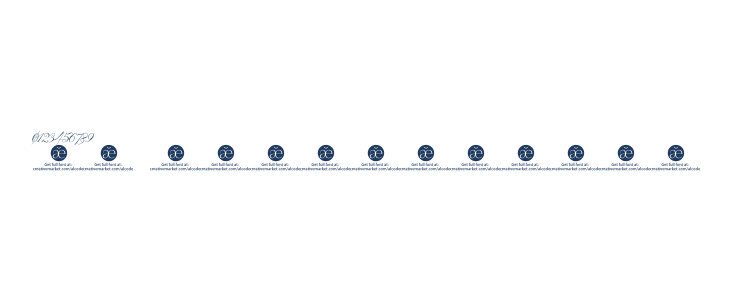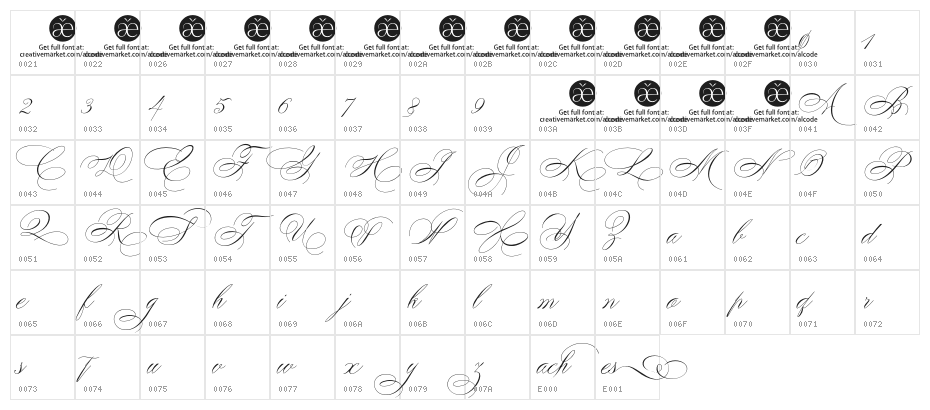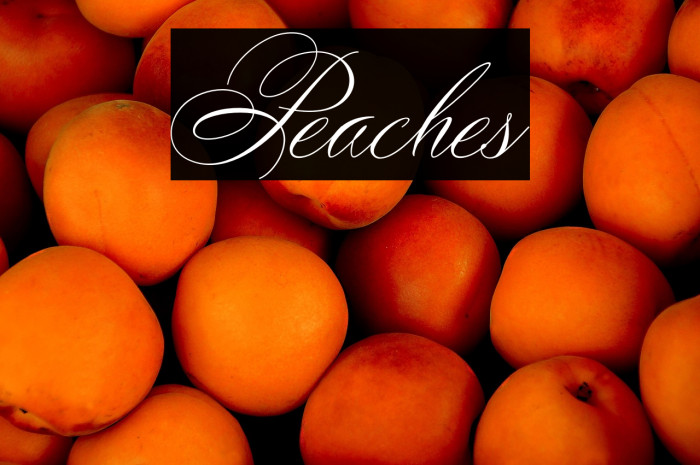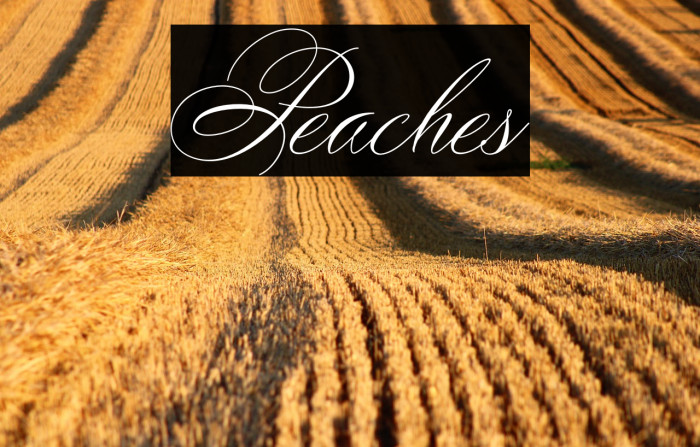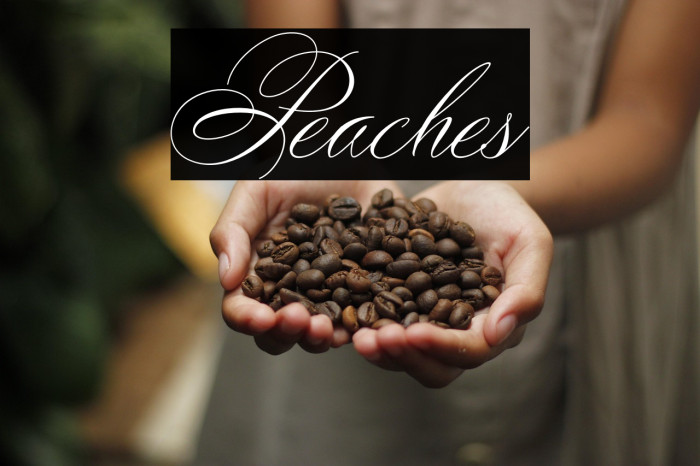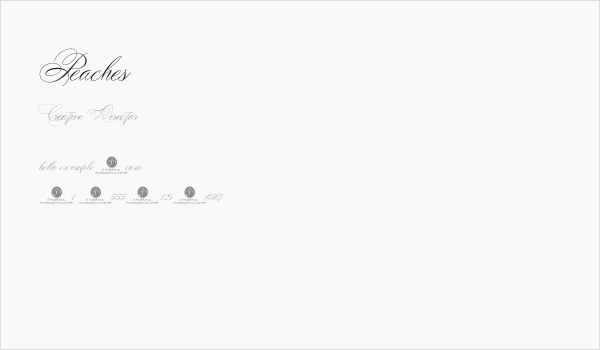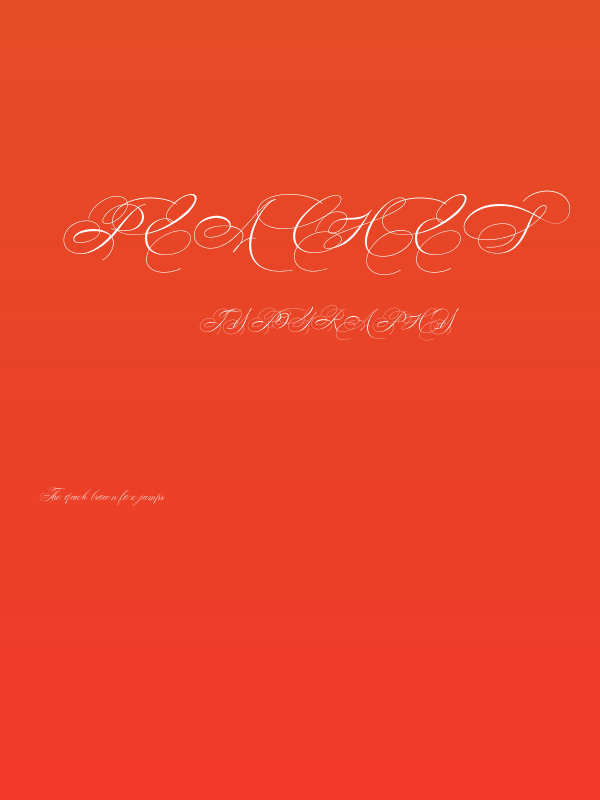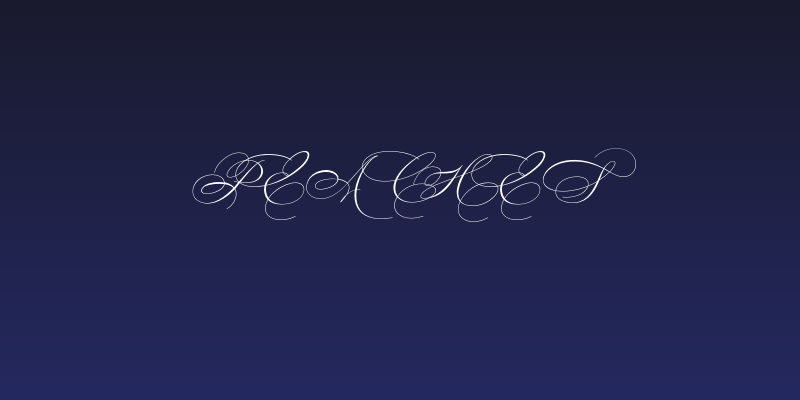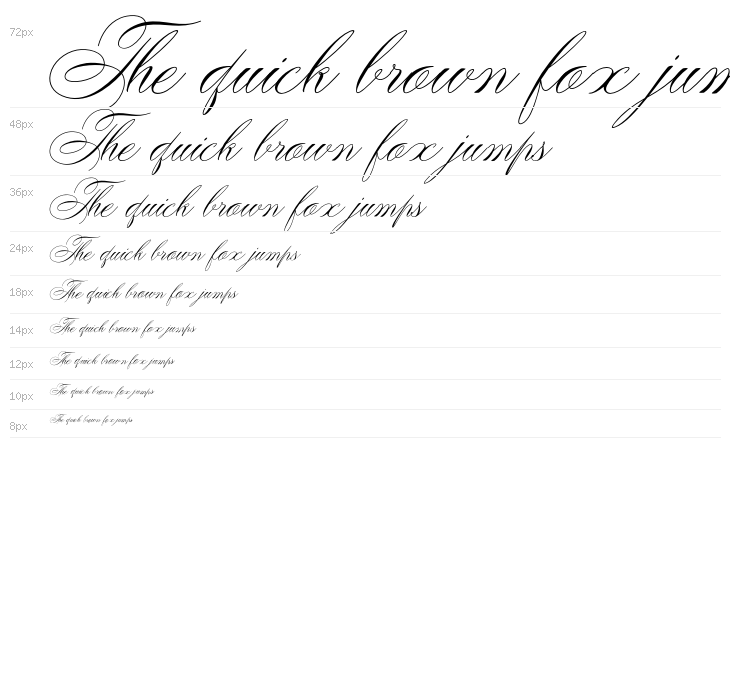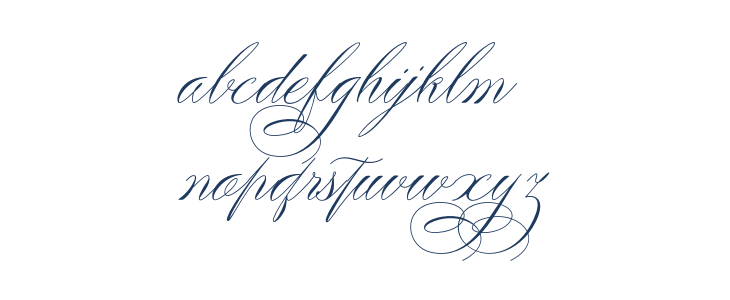
Peaches Font
Peaches Description
This font exhibits an elegant and sophisticated script style, characterized by its flowing, cursive letters and intricate flourishes. The uppercase letters are particularly ornate, with extended swashes and loops that give a sense of grandeur and formality. The lowercase letters maintain a consistent style, with smooth, connected strokes that enhance readability while retaining a decorative flair. The numerals are equally stylish, featuring curves and loops that align with the overall aesthetic. This font is ideal for projects that require a touch of elegance and sophistication, such as wedding invitations, formal event programs, or luxury branding. Its intricate design demands attention and conveys a sense of refinement and class.
Overall StyleElegant, Sophisticated, Decorative
Use CaseHeadlines, Invitations, Branding
Proposed ProjectsIdeal for wedding invitations, formal event programs, luxury branding, and elegant stationery.